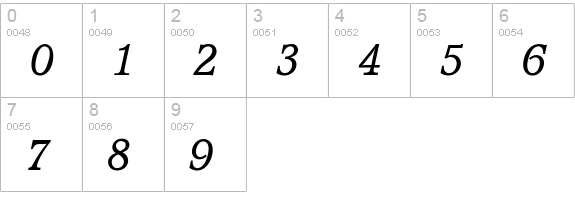
Conso Display SSi Italic Font Details
Conso Display SSi Italic is a distinctive, italic variant in the Conso typeface family \xE2\x80\x94 well suited to design and typography projects.
Conso Display SSi Italic is a modern and stylish font that exudes elegance and sophistication. Its slanted italic style adds a touch of dynamism and flair to any design project. The sleek lines and sharp edges of this typeface make it perfect for creating eye-catching headlines, logos, and branding materials. What makes Conso Display SSi Italic even more appealing is that it is available for free download at FontsMarket.com. This means that you can easily access this premium font without any cost, making it a valuable asset for designers, creatives, and anyone looking to elevate their projects with a touch of class. Whether you're working on a website, poster, advertisement, or any other creative endeavor, Conso Display SSi Italic is sure to make a bold statement and leave a lasting impression. Download this font today and take your designs to the next level with its sleek and sophisticated aesthetic.